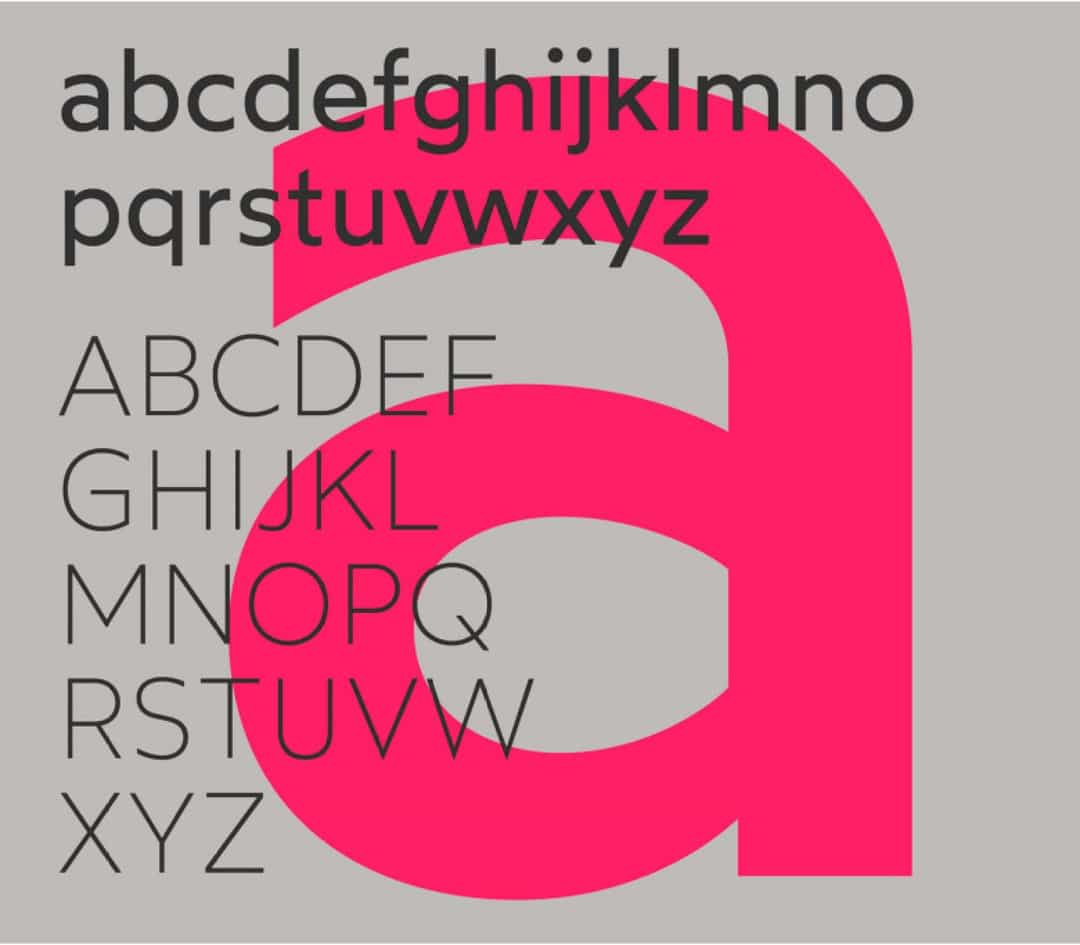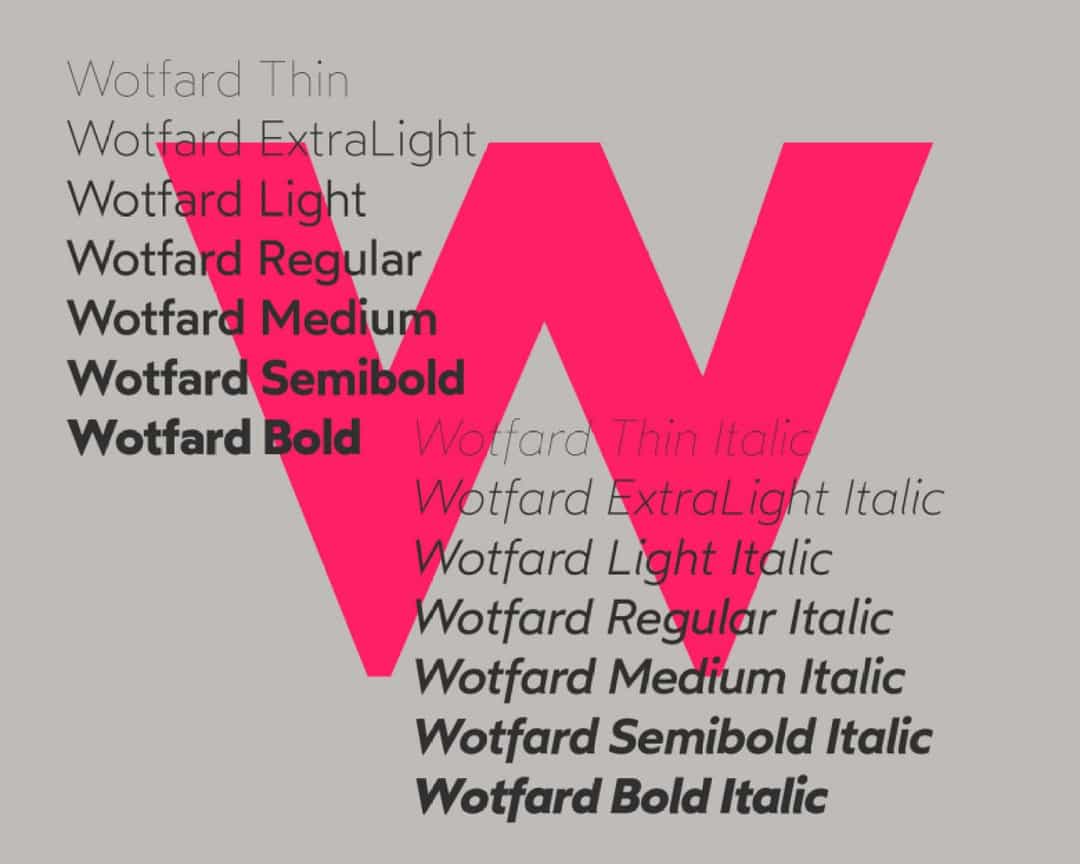
Wotfard is an elegant Sans Serif font with powerful font family characteristics. Inspired by geometrical and humanist fonts, yet featuring contemporary characteristics which together produce a sleek practical and distinguishable Sans Serif font family.